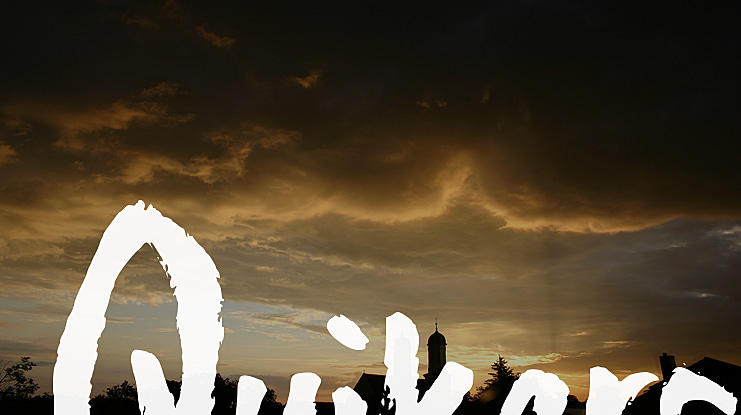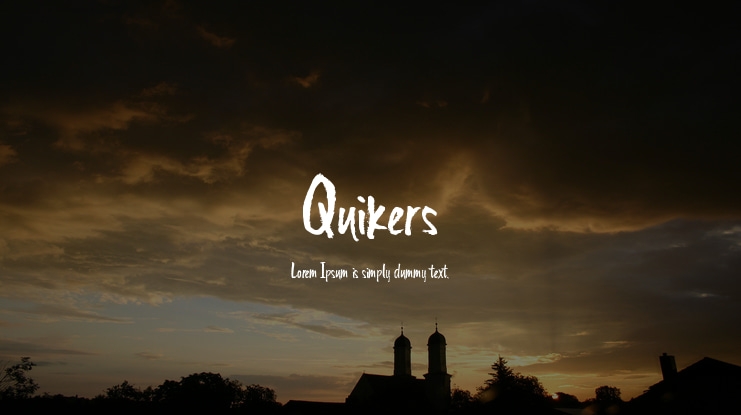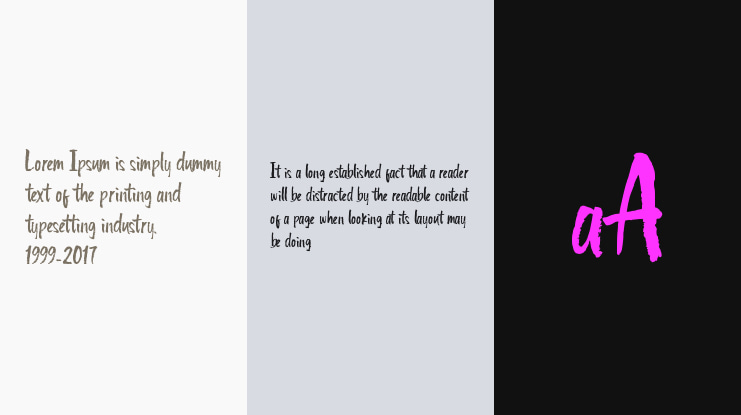
Quikers Font
Mukhlis Muhammad
Quikers - Authentic & Unique Brush Font
Now it's time to make your design look expressive and youthful with this font. No more boring design, a combination of brush stroke effect with natural handstyle make this font very beautiful to your branding, promotion, packaging, poster and much more.